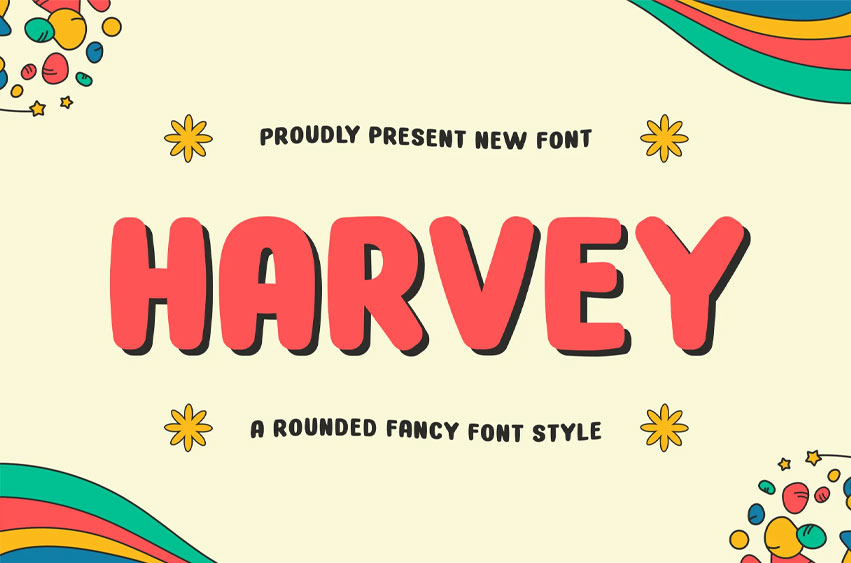
Harvey Font
Harvey Font is a charming and elegant, rounded, fancy font style that’s perfect for all your design needs.
With its rounded letterforms and fancy details, “Harvey” is a font that’s sure to add a touch of whimsy to your designs. Each letter is designed to be both playful and elegant, making it the perfect choice for branding, logos, and other high-end projects.
Whether you’re creating wedding invitations, greeting cards, or other print materials, “Harvey” is the perfect font for the job. It’s also great for use in editorial design, packaging, and other creative projects where a touch of fanciness is needed.